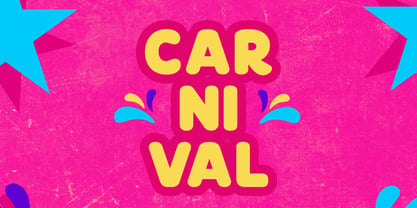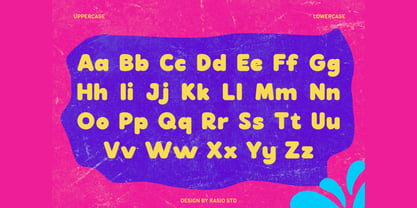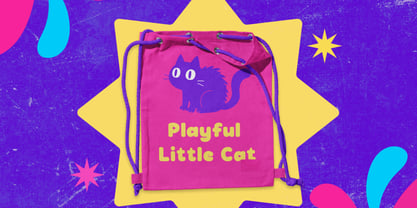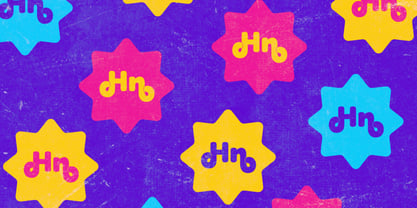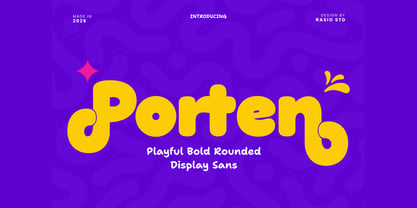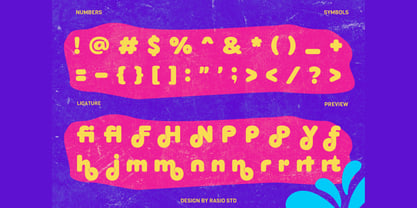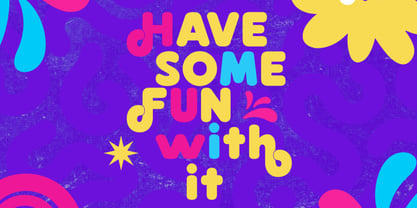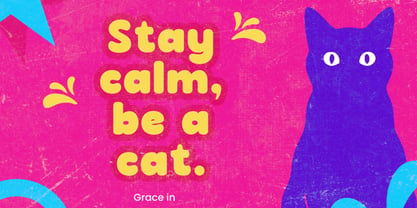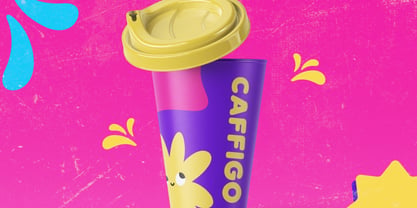
Porten
by Rasio Studio
The Porten Font Family was designed by Fajar Indra and published by Rasio Studio. Porten contains 1 styles. More about this family
Porten is a playful bold rounded display sans designed to bring energy, joy, and personality into your creative projects. With its thick curves, soft terminals, and bubbly letterforms, Porten delivers a friendly and expressive visual tone while maintaining strong legibility. This typeface includes uppercase, lowercase, numerals, and punctuation, crafted with consistent rounded geometry and smooth stroke transitions. Porten is highly suitable for children brands, toy packaging, snack and food labels, birthday invitations, educational materials, social media promotions, YouTube thumbnails, playful branding, event posters, and colorful merchandise.
Designers: Fajar Indra
Foundry: Rasio Studio